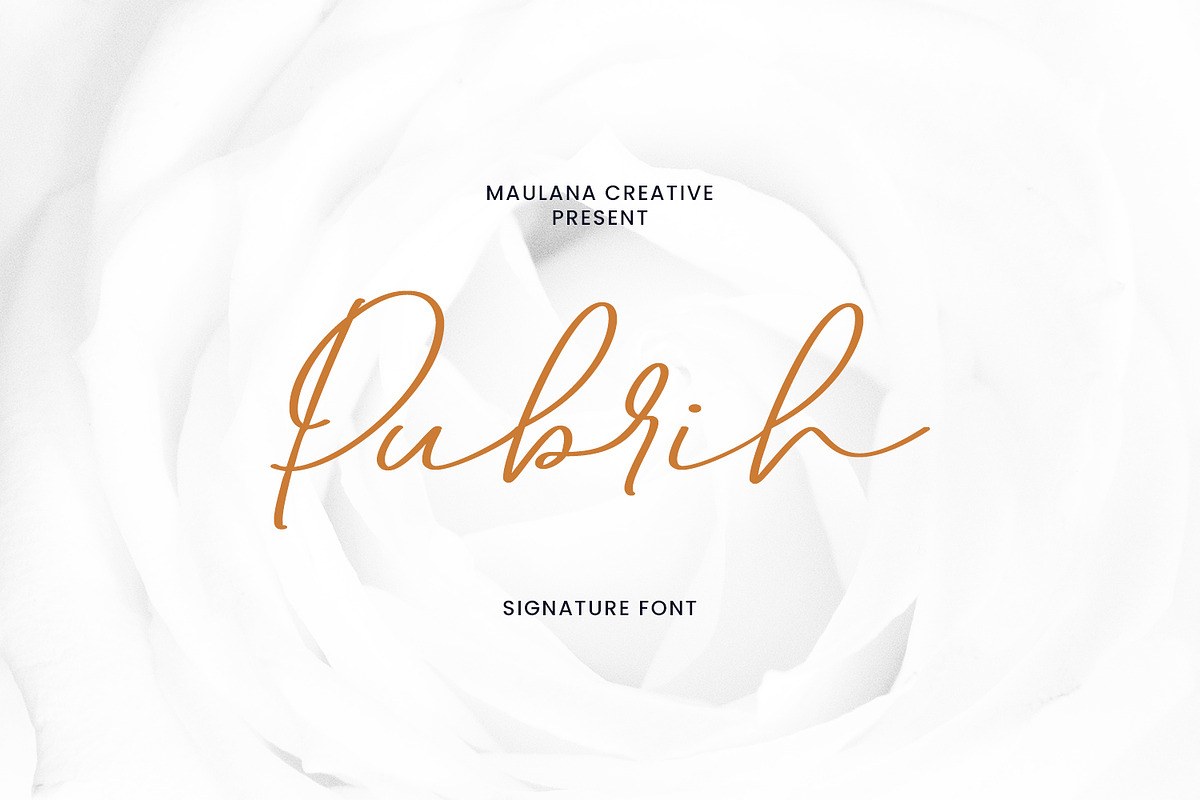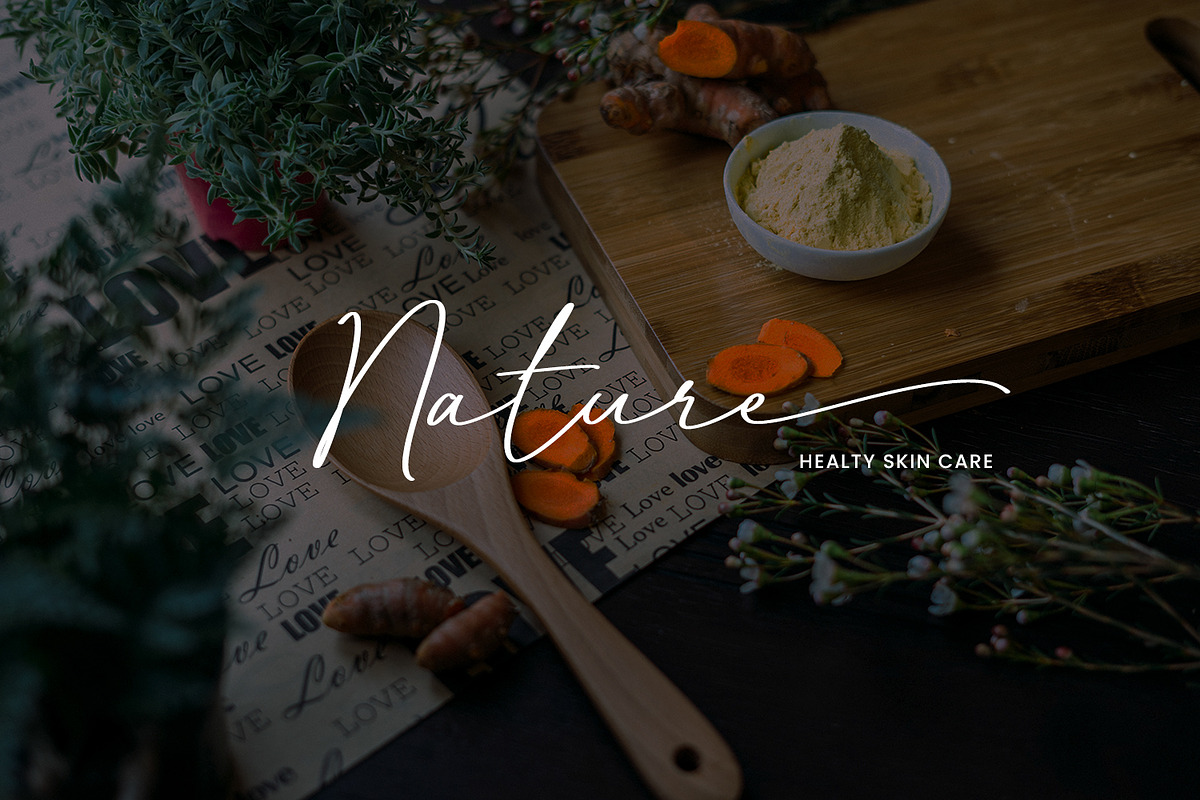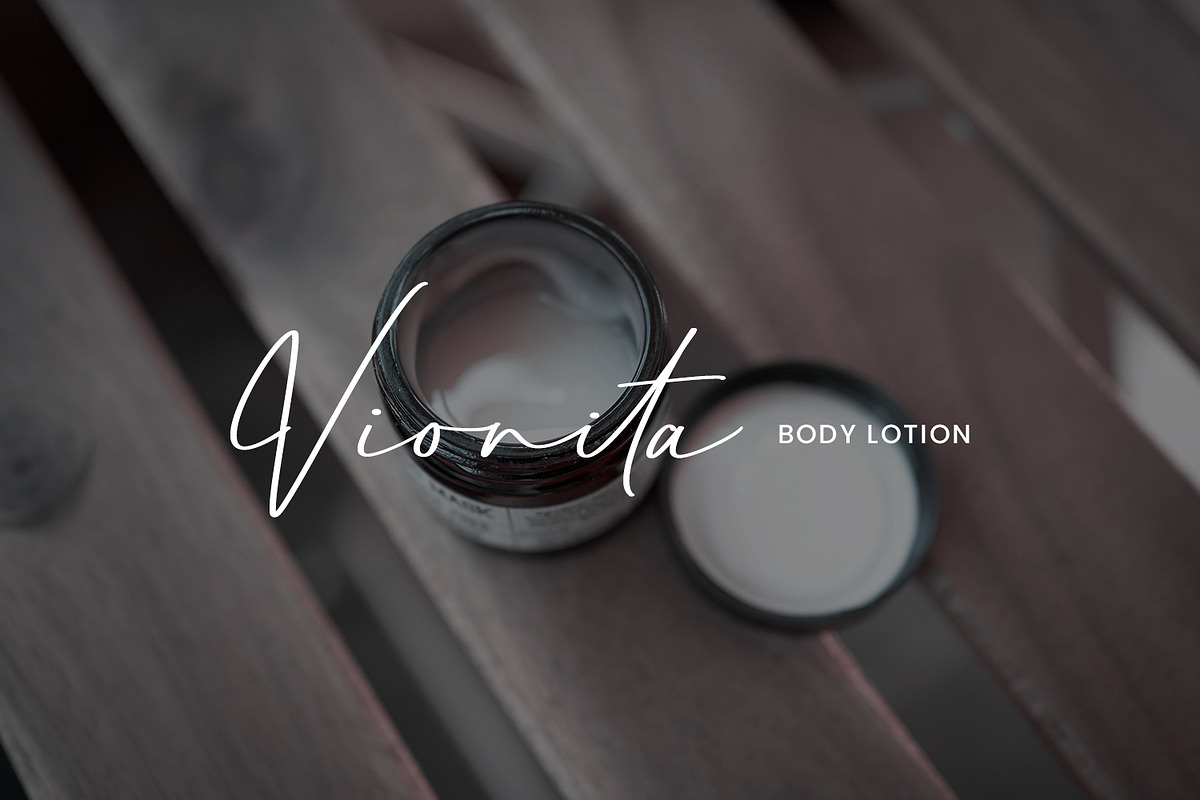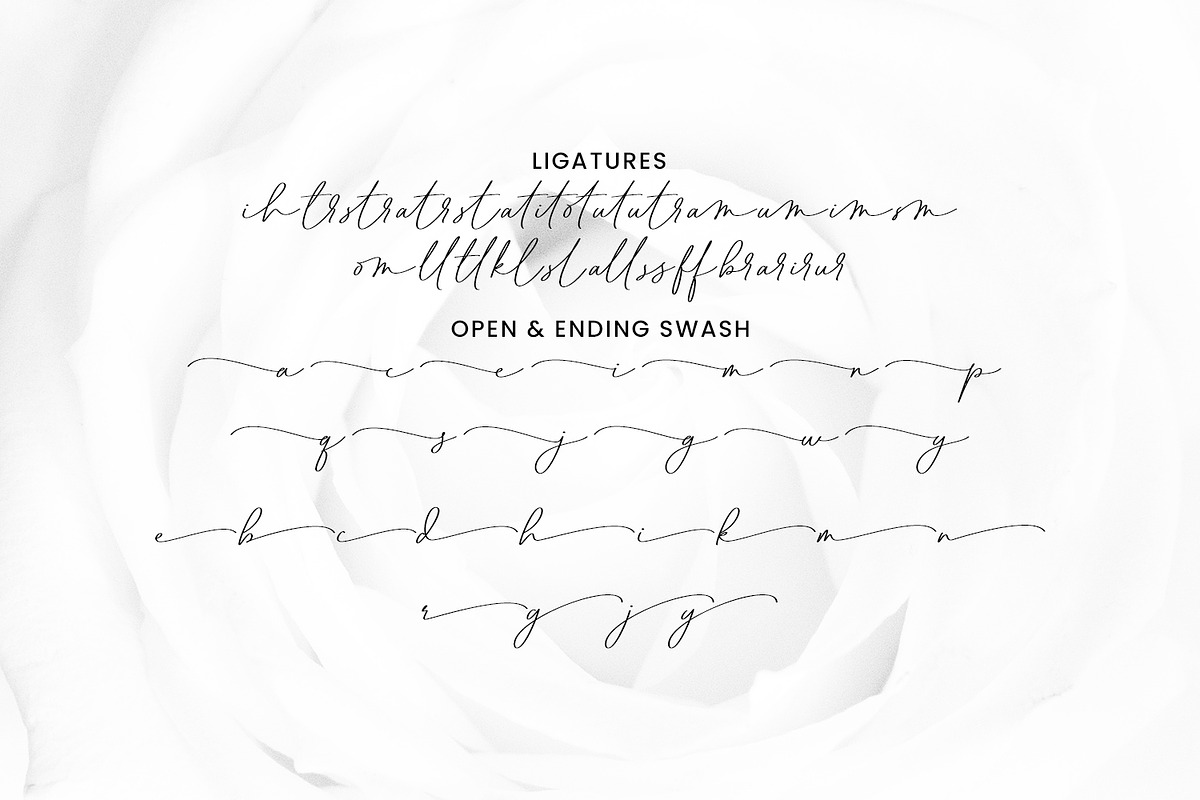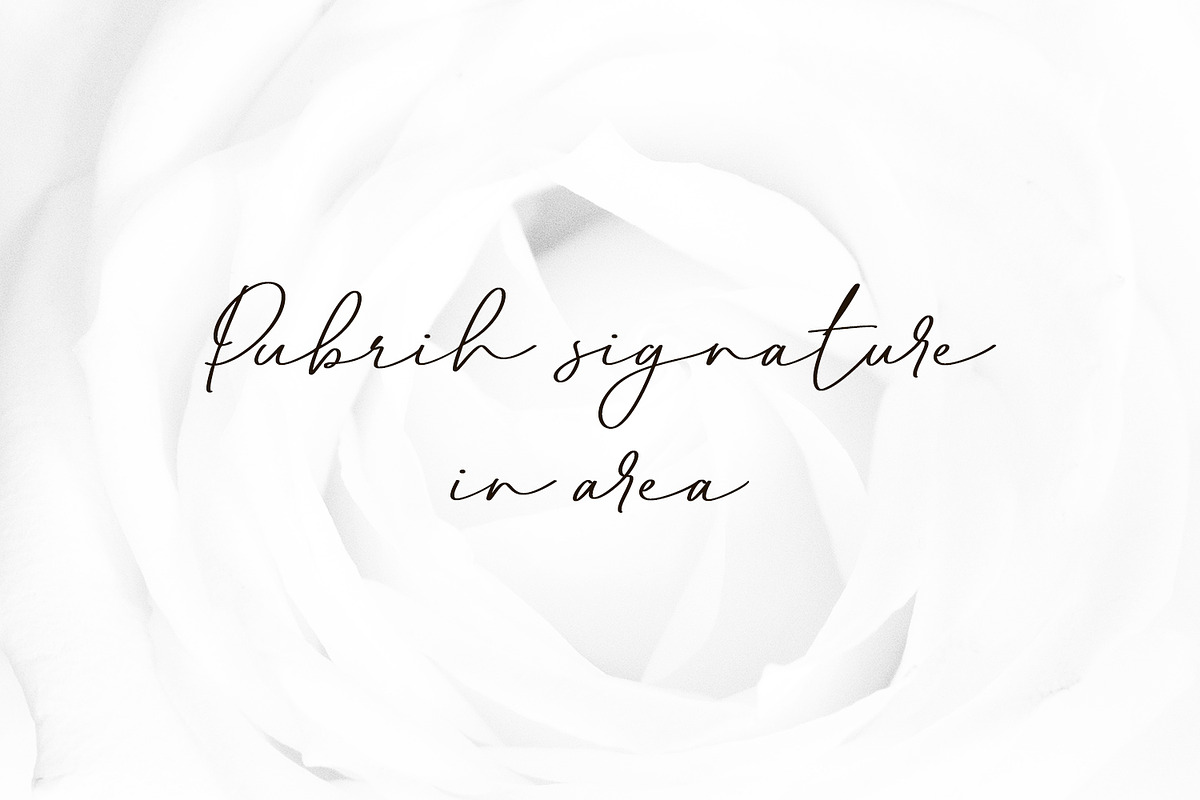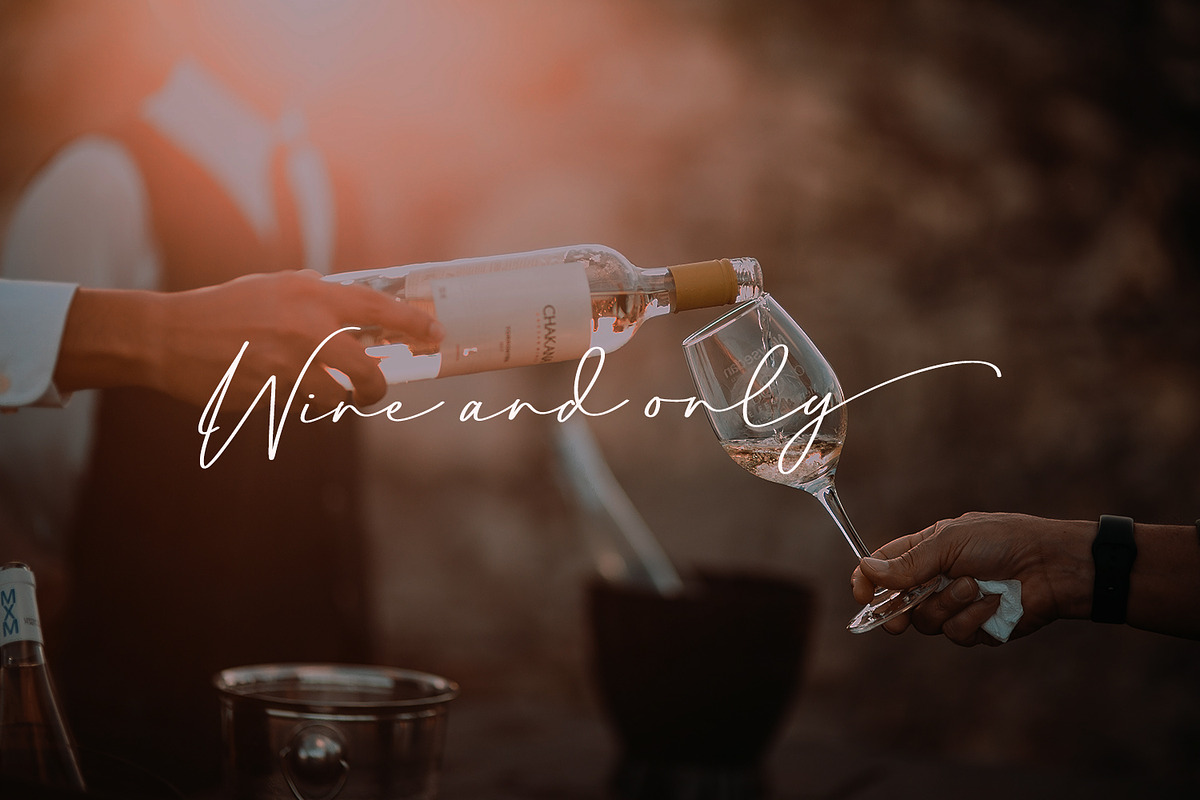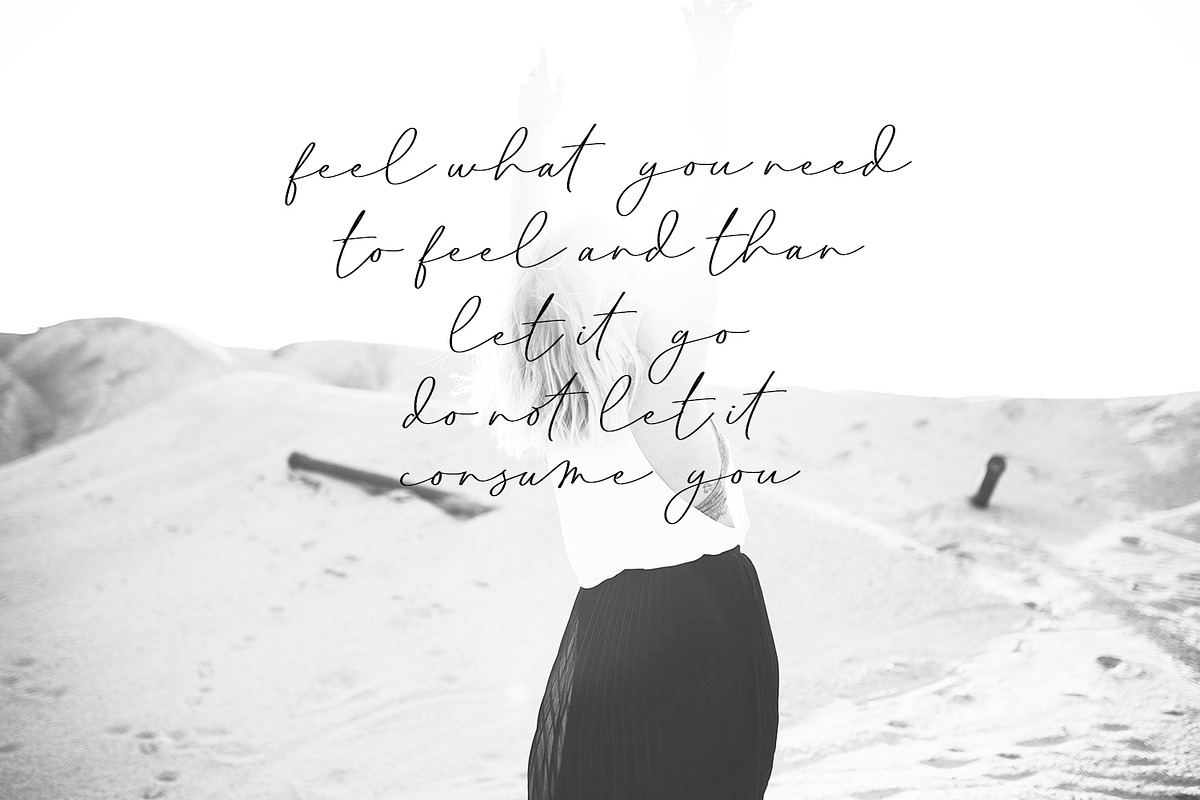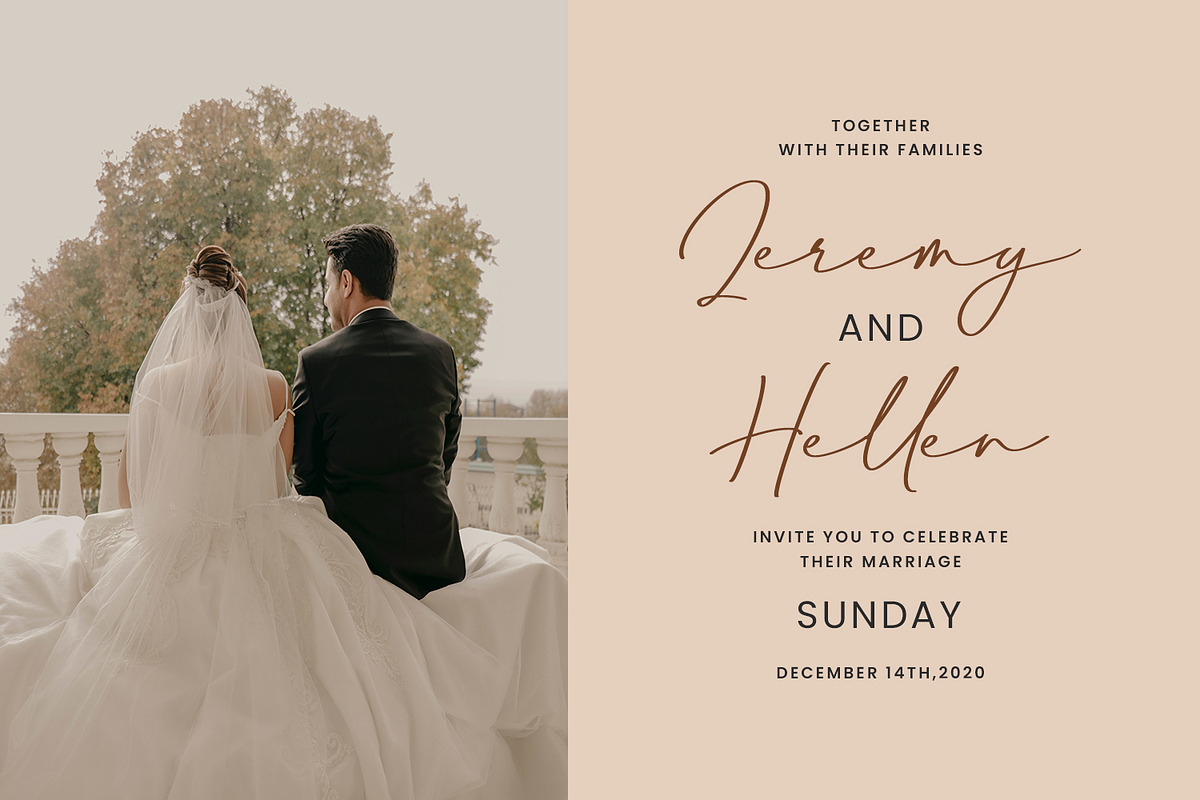
Pubrih Signature Font
Give your designs an authentic handcrafted feel. “Pubrih Signature Font” is perfectly suited to stationery, logos and much more.